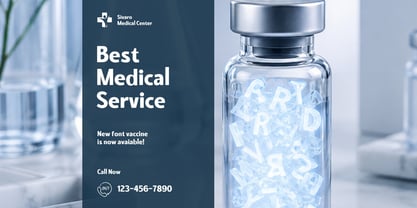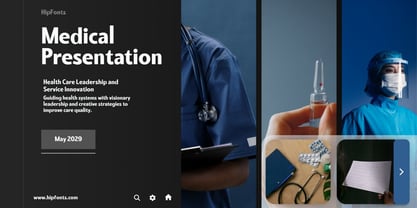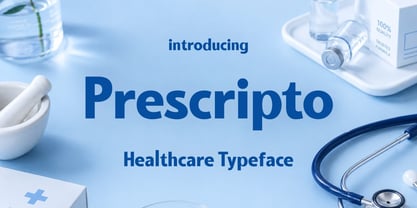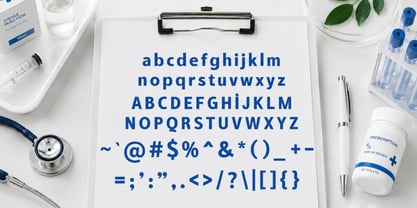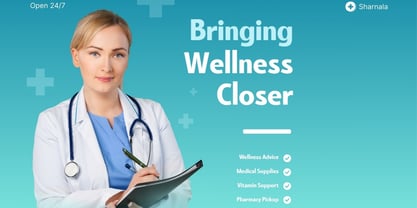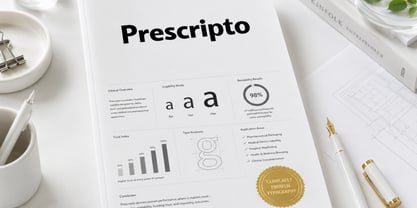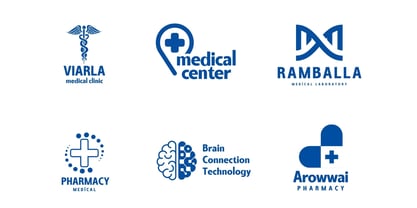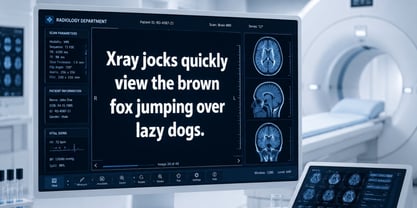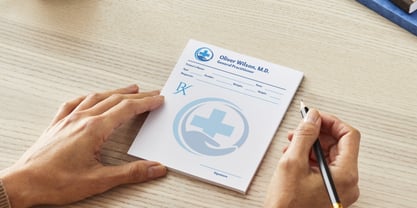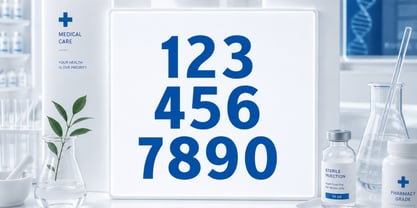
Prescripto
The Prescripto Font Family was designed by Igor Ovsyannykov and published by Hipfonts. Prescripto contains 1 styles. More about this family
Prescripto is a modern healthcare-inspired typeface designed to communicate trust, clarity, and professionalism. Inspired by the visual language of hospitals, pharmacies, medical research institutions, prescription drug packaging, healthcare technology companies, and wellness brands, this typeface delivers a clean and highly legible appearance that feels both approachable and authoritative.
With its balanced proportions, smooth curves, and contemporary geometric structure, Prescripto was carefully crafted for environments where readability and confidence matter most. Whether you're designing pharmaceutical packaging, medical brochures, healthcare websites, clinic branding, patient information sheets, prescription labels, wellness products, or healthcare mobile applications, Prescripto helps your message feel credible and professional.
The typeface combines the precision of modern medical design with the warmth needed to build trust with patients and consumers. Its sleek and versatile character set makes it suitable for both digital and print applications, allowing designers to create clean, organized, and visually appealing healthcare communications.
Prescripto is perfect for pharmaceutical companies, hospitals, clinics, dentists, veterinarians, medical startups, telehealth platforms, wellness brands, biotech firms, healthcare software, medical packaging, laboratory reports, signage systems, educational materials, and much more.